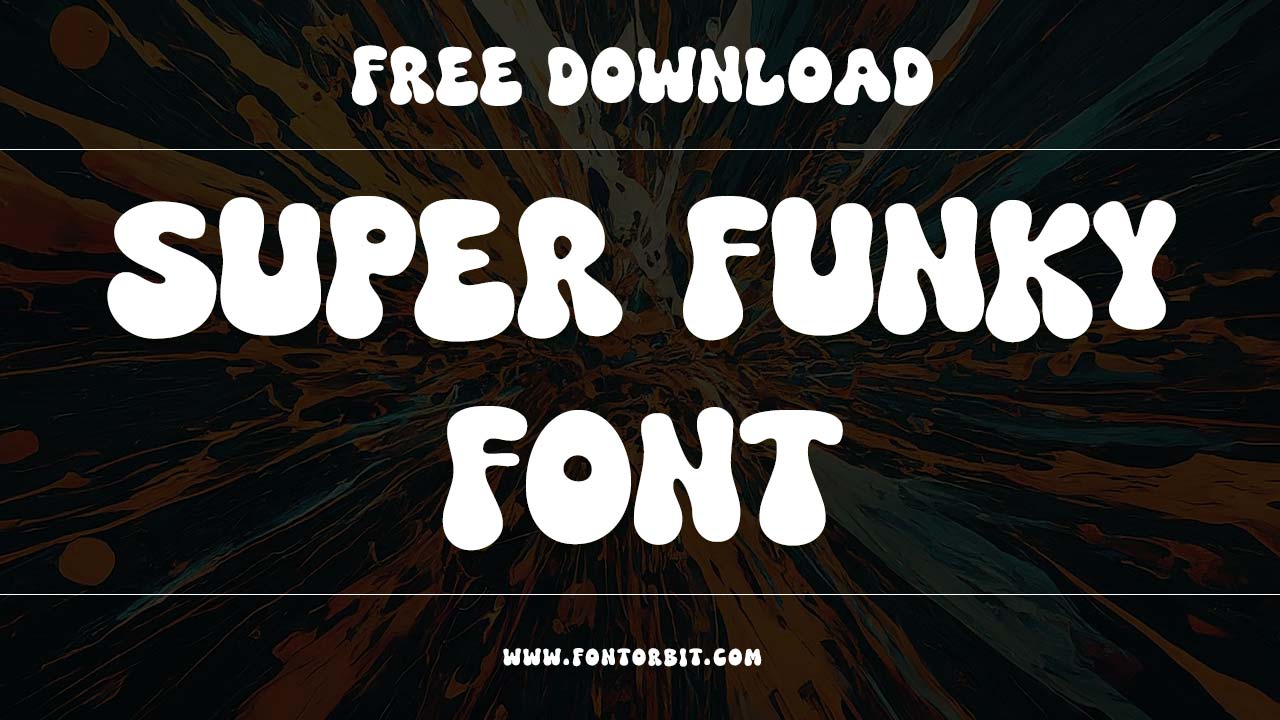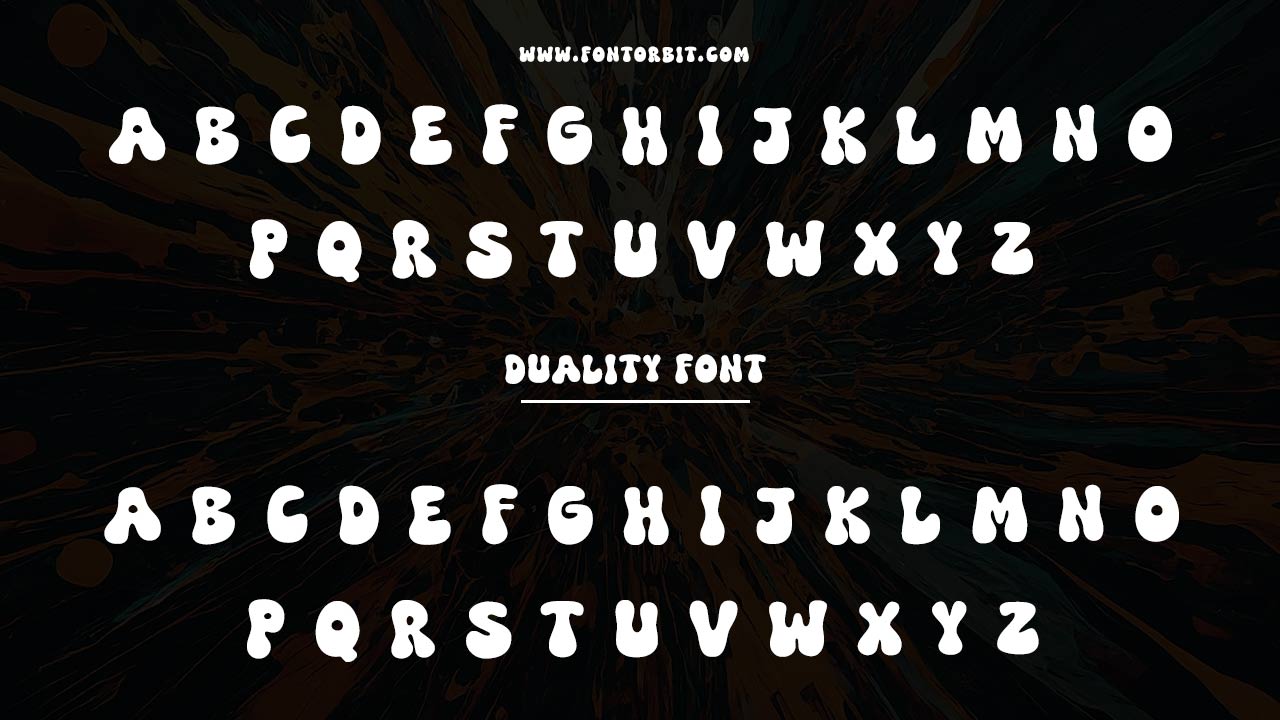
The Super Funky Font is a groovy and playful display typeface uploaded by Gaston Lind and designed by fsuarez913. With its retro vibe and bold personality, it is perfect for creating eye-catching headlines, music posters, packaging designs, and more. Whether you’re working on a creative project, web design, or an album cover, Super Funky brings a unique charm to your design projects.
Key features include:
- Retro Groovy Style: Ideal for bold and playful typography.
- Multilingual Support: Includes Cyrillic and other foreign scripts.
- OpenType Features: Offers symbols, numbers, and decorative elements to enhance designs.
Using Occasions Of The Super Funky Font
The versatility of Super Funky makes it ideal for a wide range of applications:
- Posters: Perfect for attention-grabbing music posters and promotional flyers.
- Logos: Adds a funky flair to branding and logos.
- Web Design: Brings personality to typography for websites and advertisements.
- Packaging Design: Enhances the aesthetic of product packaging with its decorative style.
- Album Covers: Perfect for creative projects with a retro vibe.
Super Funky Font Found In Use
The Super Funky Font stands out in projects requiring a retro and vibrant aesthetic. Its wide range of applications includes:
- Titles and headings for creative projects.
- Typography in music posters and web graphics.
- Decorative touches in packaging and print advertisements.
- Vintage-inspired designs for logos and branding.
Tips For Using Super Funky Font Effectively
To make the most of Super Funky Font, keep these tips in mind:
- Pair it Wisely: Since the font is so bold and dynamic, pair it with a clean, neutral secondary font to balance your design.
- Use It Sparingly: Let the font shine by reserving it for headlines, titles, or key elements. Overusing it can make designs feel overwhelming.
- Experiment with Colors: Bright, contrasting colors amplify the font’s funky vibe.
- Mind Your Context: While it’s great for informal and creative projects, it may not suit professional or formal designs.
Super Funky Font is more than just a typeface; it’s a celebration of creativity and individuality. Its bold design challenges the status quo and invites designers to have fun with their work. Whether you’re creating for print or digital, this font guarantees that your project will stand out, leaving a lasting impression on your audience.
So go ahead, embrace the funky side of typography, and let your imagination run wild with Super Funky Font!
1.What Makes The Super Funky Font Unique?
The Super Funky Font stands out with its retro vibe, groovy style, and playful personality. Its bold, decorative design makes it perfect for creating standout typography in posters, headlines, and album covers. Additionally, the font offers multilingual support, allowing designers to use it in various languages without limitations. Its free license for both personal and commercial use adds to its appeal.
2.Does Super Funky Font Support Multiple Languages?
Yes, Super Funky Font includes multilingual support, covering most Latin-based scripts, including Cyrillic. This feature makes it an excellent choice for designers working on international projects or creating text in different languages. The character map also includes symbols and other typographic elements for added versatility.
3.What Are The Main Use Cases For Super Funky Font?
Super Funky Font is highly versatile and ideal for a wide range of design projects, such as:
- Posters: Its bold and decorative style is great for music posters and advertisements.
- Web Design: Adds a retro vibe and personality to headlines and website typography.
- Packaging Design: Enhances creative packaging for products like food, cosmetics, or gifts.
- Album Covers: Perfect for creating striking visuals with a funky, artistic flair.
7.How Can Super Funky Font Enhance My Design Projects?
The Super Funky Font can add personality and inspiration to a wide range of design projects. Whether you’re working on a title for a creative project, designing advertisements, or crafting playful packaging, its bold and groovy style ensures your text makes a statement. It’s also suitable for creating unique logos, designing music posters, and adding artistic flair to print and web graphics.